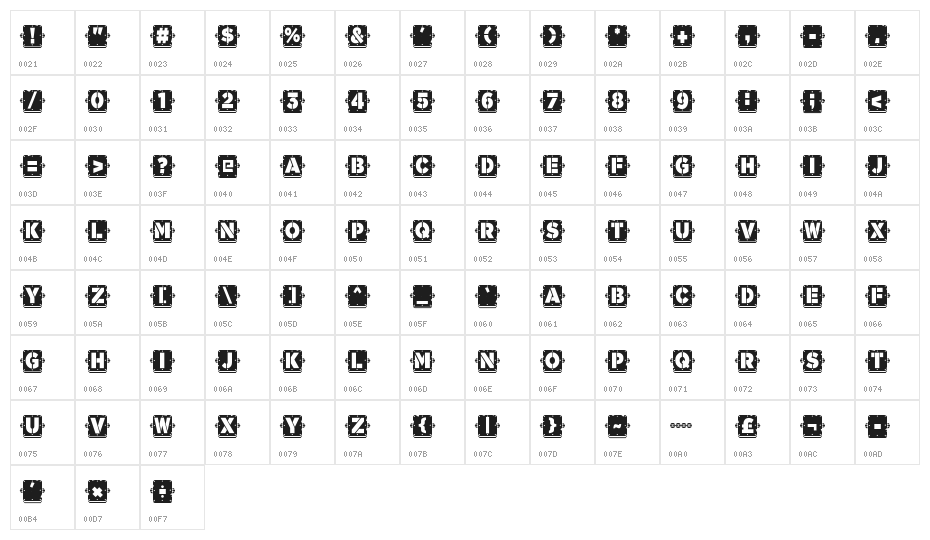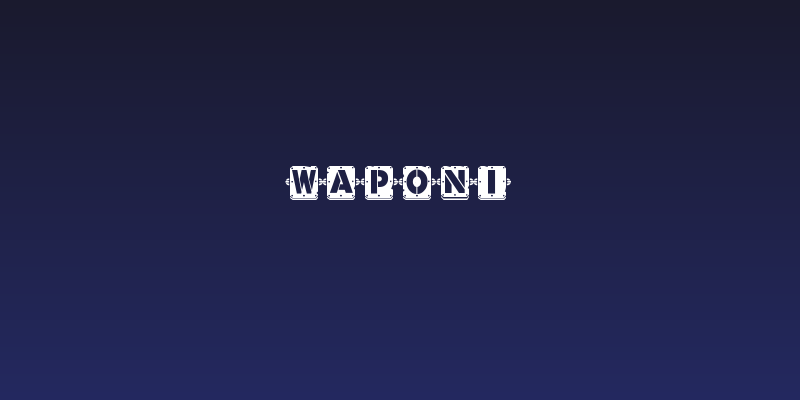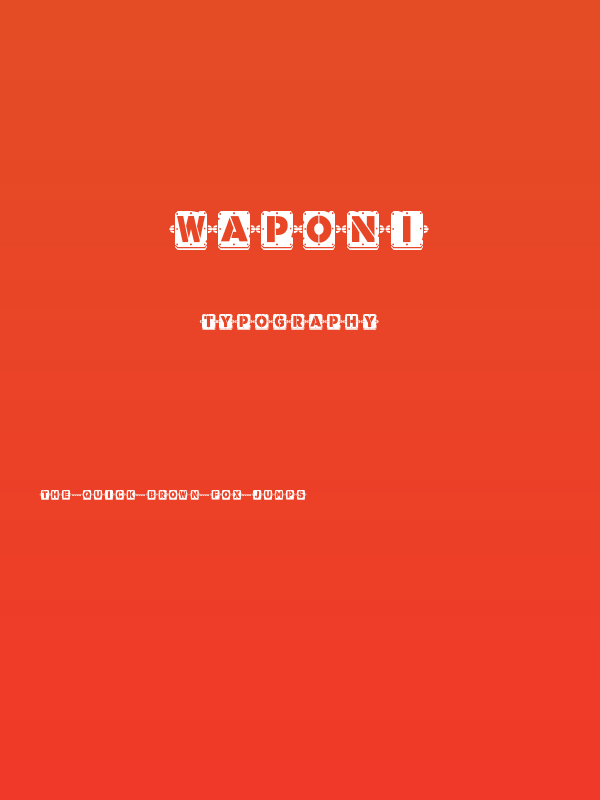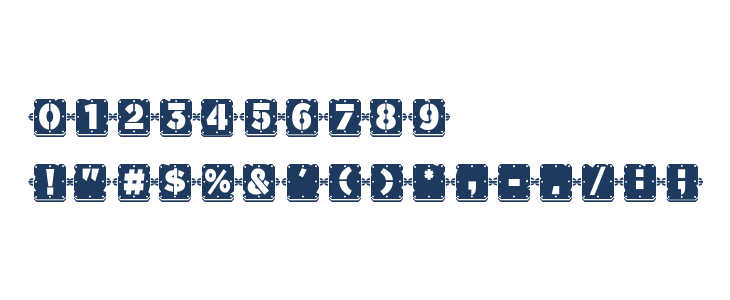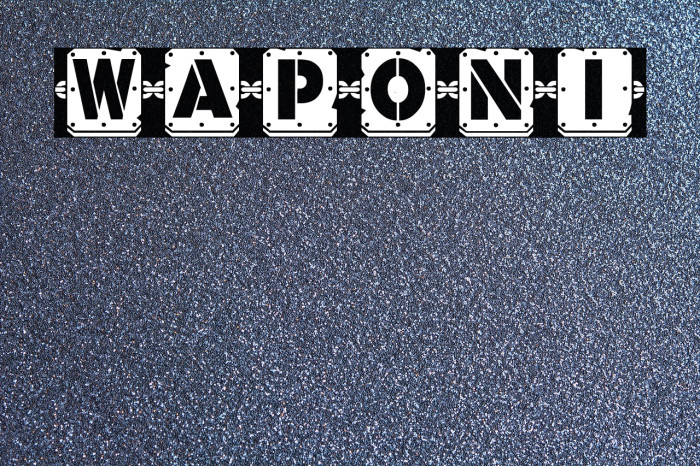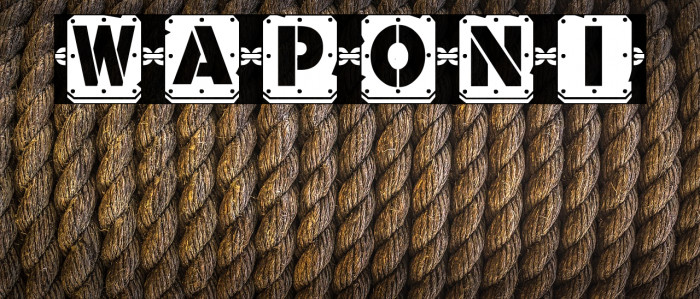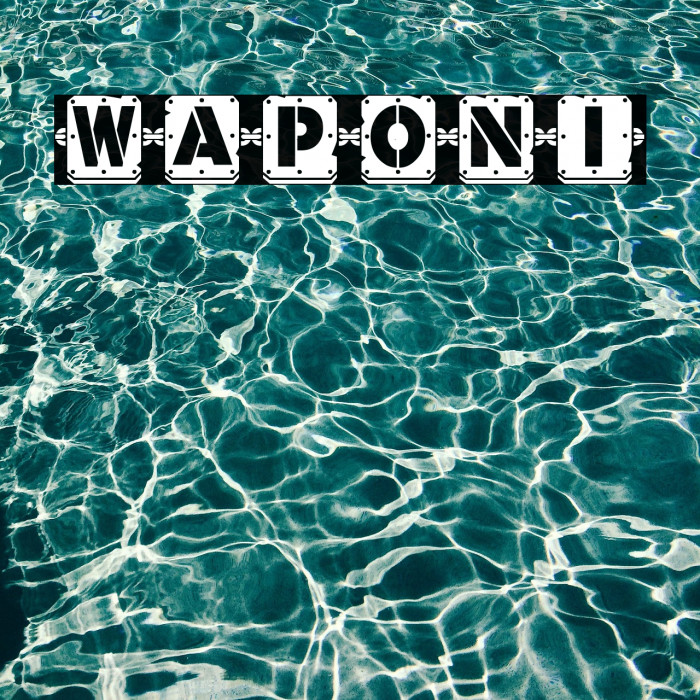
Waponi Font
Waponi Description
This font features a unique and bold design with each character enclosed in a square frame, connected by a chain-like pattern. The letters are uppercase, with a solid, blocky appearance that gives them a strong presence. The numbers and special characters follow the same design, maintaining consistency throughout. The overall look is industrial and mechanical, making it stand out with its decorative elements. The font's style is eye-catching and suitable for projects that require a distinctive and robust typeface.
| Overall Style | Industrial, Decorative |
| Proposed Projects | Ideal for posters, logos, and branding that require a strong, industrial aesthetic. |